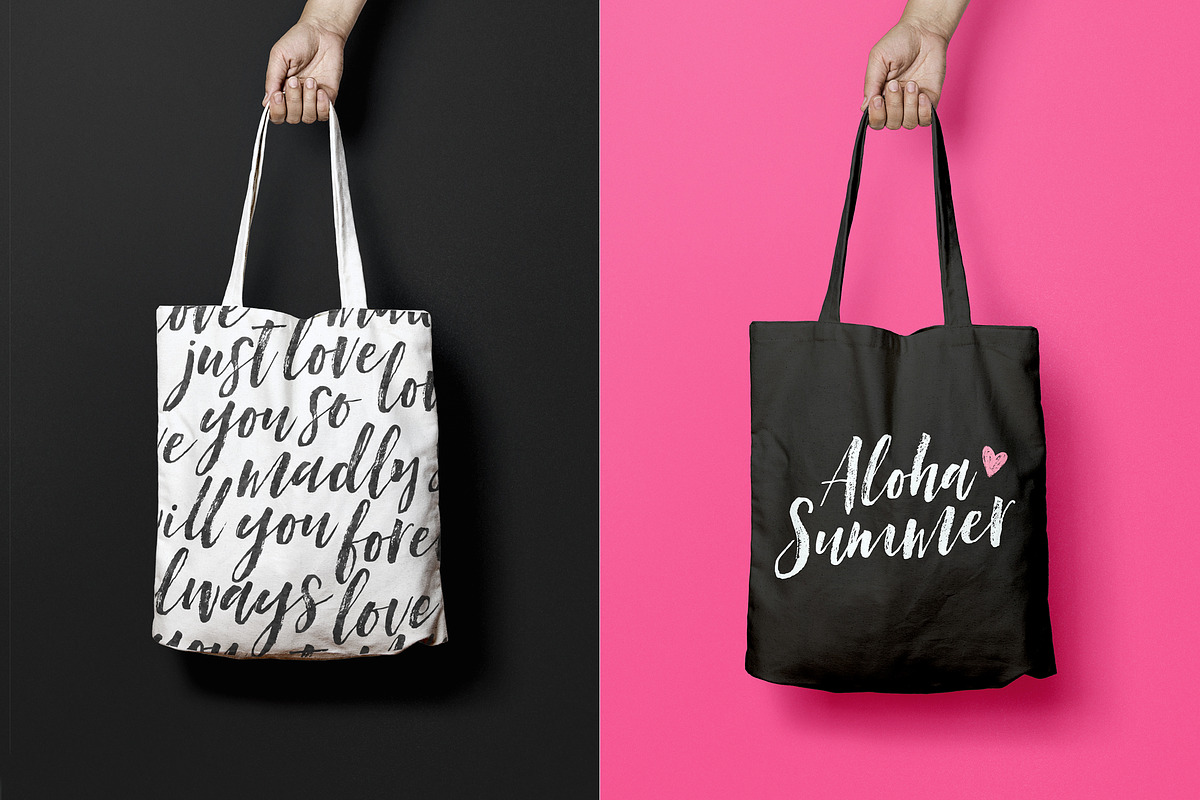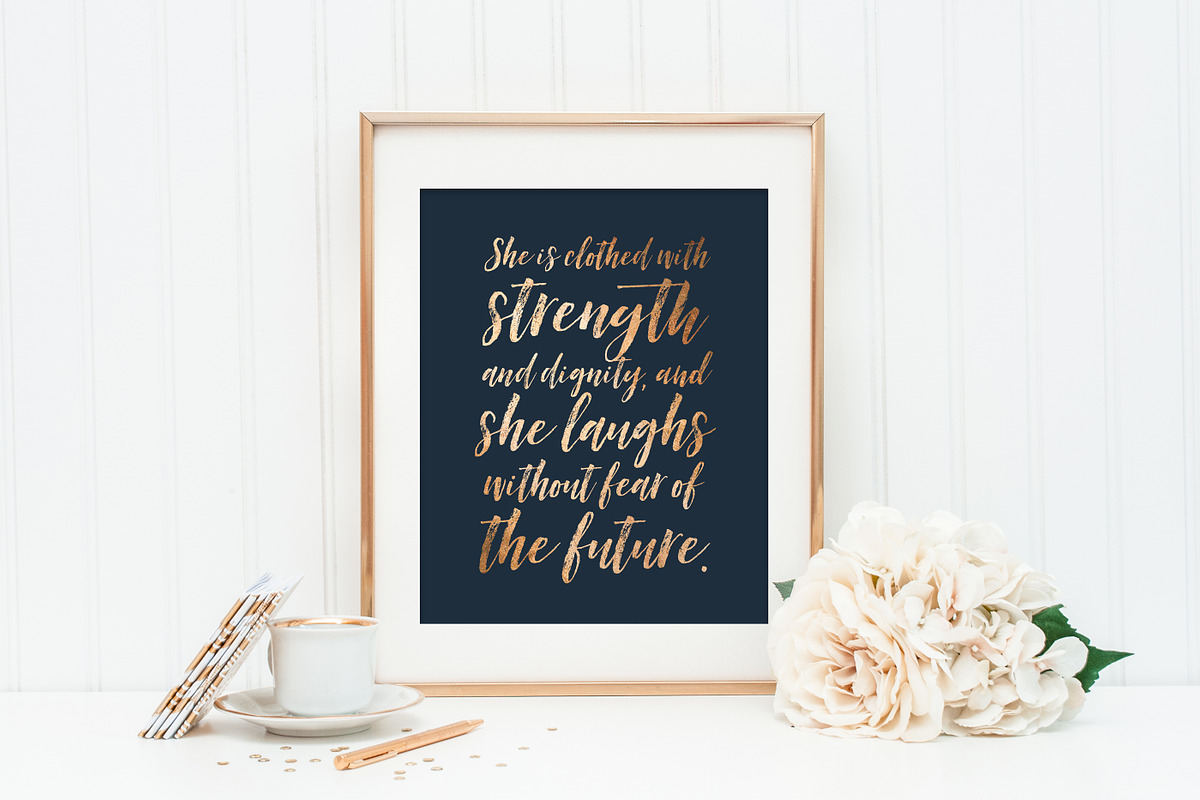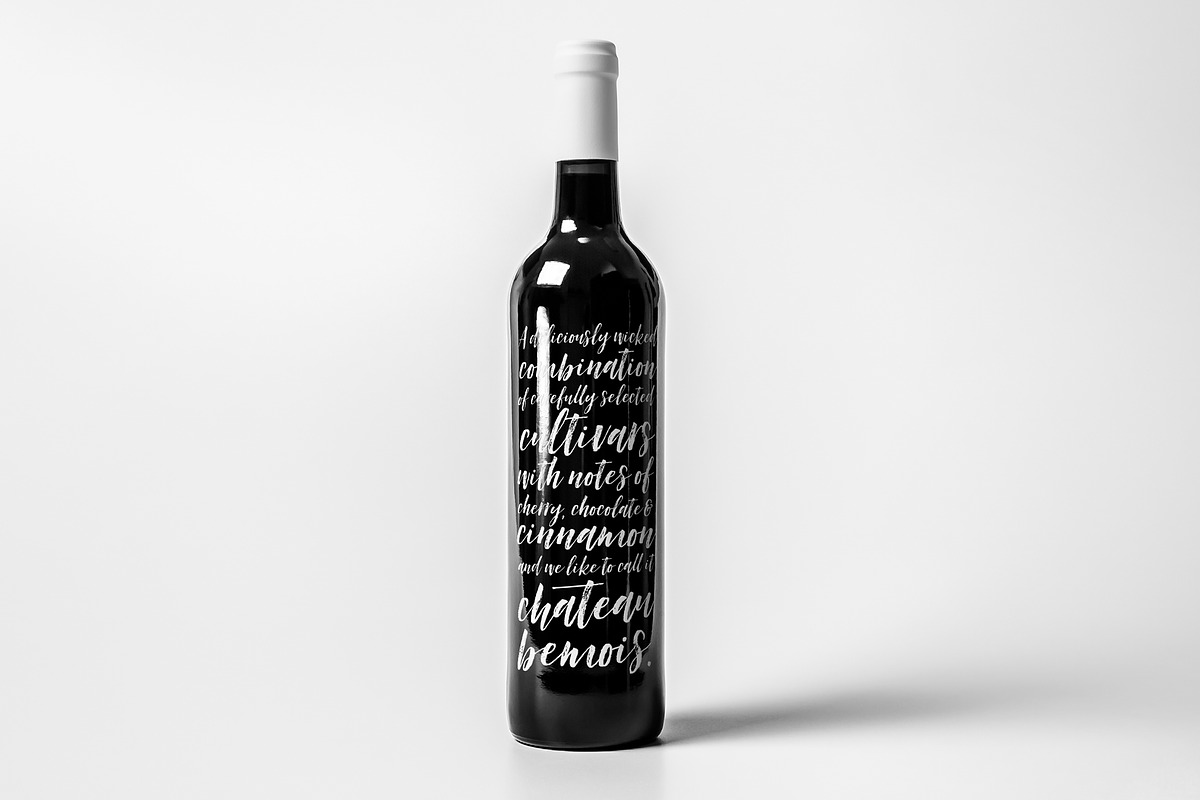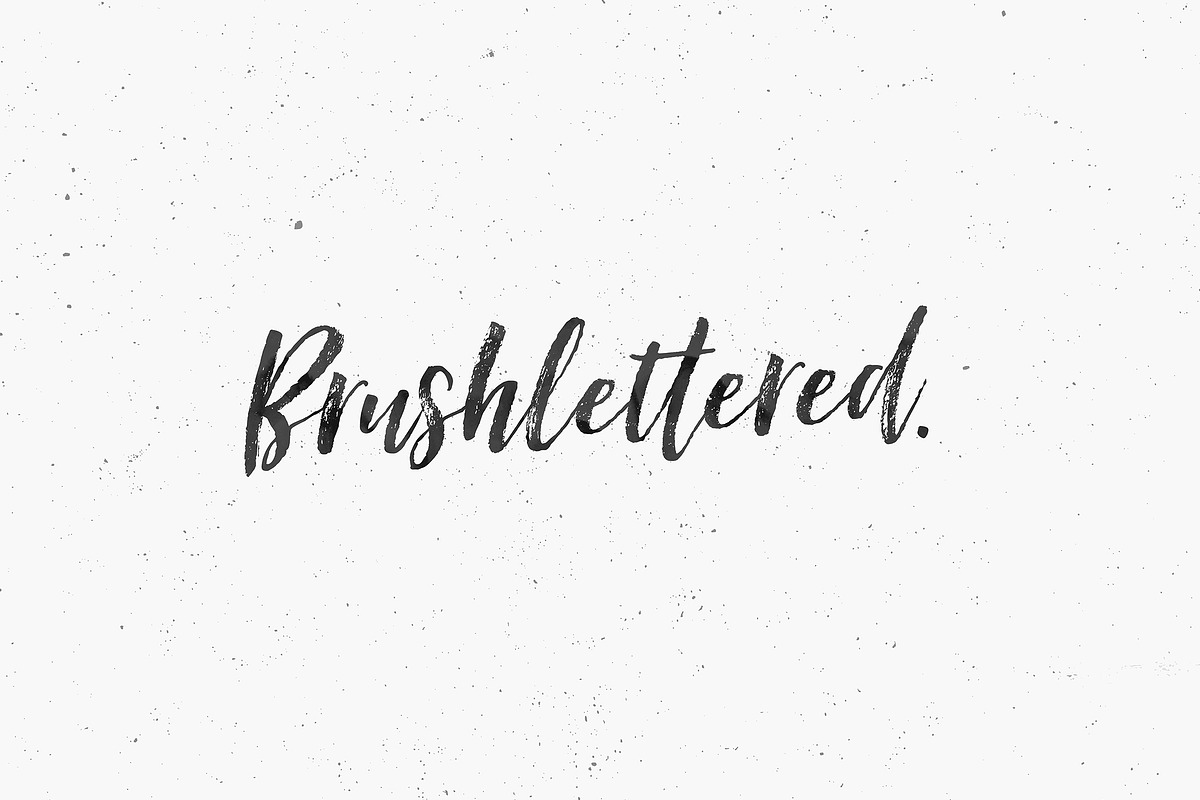
Island Style Brushed Font Duo
Island Style Brushed Font Duo by Nicky Laatz is a font selected for branding, posters, packaging, typography.
- EXTRA SET OF ALTERNATE LETTERS : To add some authenticity to your designs, Island Style brush script comes with a full set of alternate lowe
- Introducing "Island Style Brush Font Duo!" A super-cool little duo of textured brushed fonts that go together perfectly : A super casual han
Why Island Style Brushed Font Duo is worth a look
Island Style Brushed Font Duo by Nicky Laatz fits naturally into Branding, posters, packaging, typography.